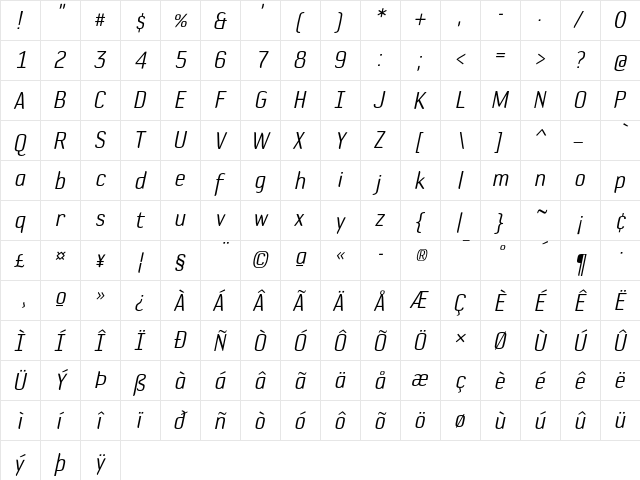
DefaultGothic-AGauge Italic
Design Context for DefaultGothic-AGauge Typeface
DefaultGothic-AGauge has the quiet confidence of well-executed sans-serif typography: versatile, unobtrusive, and dependable at any size. The dynamic lean of this cut emphasises speed and emphasis in any layout.
Font Pairing: Works well alongside a characterful serif or display font that can carry the expressive load while DefaultGothic-AGauge handles the functional copy.
Pro Tip: Pair DefaultGothic-AGauge with a display or serif font for headlines — its neutral character makes it an excellent supporting player in complex typographic systems.